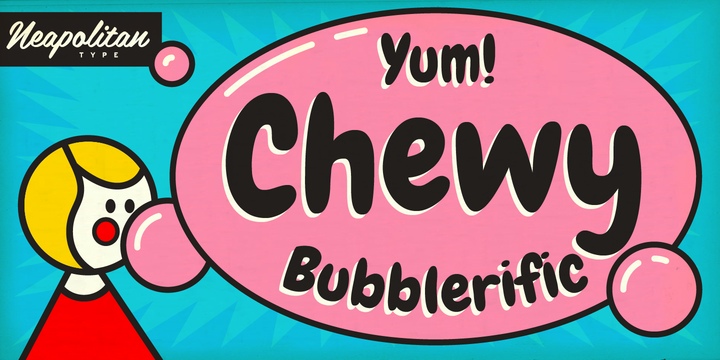
Chewy Pro Font
Chewy Pro Font is perfect for candy store branding, fun snack food packaging, playful children's restaurant signage, chewy confectionery logos, bubble gum advertising materials, family-friendly ice cream parlor graphics, whimsical bakery communications, colorful kids' party supplies, bouncy toy company branding, and joyful children's entertainment venue advertising. This delightful typeface excels in applications where playful chewiness, sweet satisfaction, and child-friendly fun are fundamental brand characteristics.
What makes Chewy Pro Font exciting is its irresistible embodiment of chewy satisfaction through bouncy letterforms that capture the delightful texture and playful enjoyment found in favorite chewy treats and childhood confections. The font features rounded character construction with elastic details and stretchy proportions that immediately evoke the satisfying chewiness of gummy bears, taffy, and other beloved sticky-sweet treats. Its playful personality makes it perfect for brands that celebrate the simple joy and tactile satisfaction that comes from chewy snacks and interactive food experiences.
The Chewy Pro Font family typically includes Regular and Bold weights, often accompanied by extra-stretchy variations with enhanced chewy characteristics and bouncy ligatures that add natural elasticity and playful movement to text applications. Many versions include candy-themed symbols, sweet decorative elements, and fun characters that enhance the confectionery aesthetic and appeal to children's natural love of colorful, interactive treats. Some collections include outline variations and bubbly effects that amplify the chewy, satisfying atmosphere for maximum sweet appeal.
Whether you're developing brand identities for confectionery companies, creating packaging for chewy snack products, or designing materials that celebrate the tactile joy and sweet satisfaction of interactive food experiences, Chewy Pro Font Free Download provides the authentic chewy character that resonates with children and families who appreciate fun, interactive treats and playful food experiences. Its satisfying presence makes it ideal for businesses focused on creating memorable snack experiences that engage multiple senses and bring families together through shared enjoyment. The font's ability to convey both playful fun and satisfying texture makes it particularly valuable for candy manufacturers, snack food companies, and family entertainment venues seeking to attract customers who value the simple pleasure of chewy treats and the kind of tactile food experiences that create lasting happy memories.